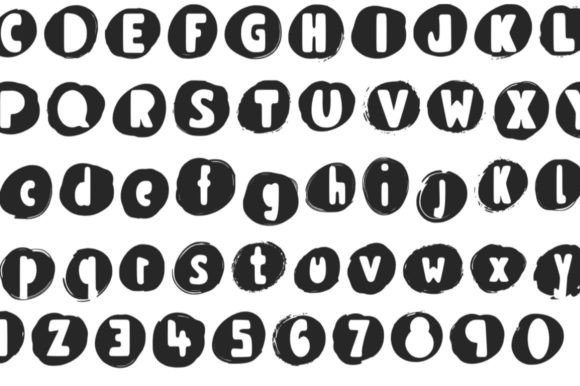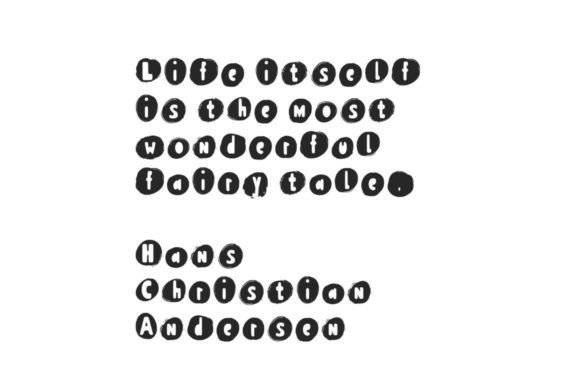
Introducing Blob Font: The Playful and Bold Decorative Font for Creative Projects
Are you looking for a font that adds a touch of playfulness and whimsy to your designs? Look no further than Blob Font, a child-like decorative font that’s perfect for schools, home teaching, craft projects, and more. With its bold and joyful style, Blob Font is sure to bring a smile to anyone’s face.
What is Blob Font?
Blob Font is a unique and eye-catching font that’s designed to add a bit of splat to your designs. Each glyph features a friendly and joyful style, making it perfect for projects that require a playful touch. Whether you’re creating materials for a school, working on a craft project, or designing for a children’s brand, Blob Font is the perfect choice.
Key Features of Blob Font
- Playful and bold design: Blob Font features a unique and eye-catching design that’s sure to grab attention.
- Child-like style: The font’s child-like style makes it perfect for schools, home teaching, and craft projects.
- Joyful and friendly glyphs: Each glyph is designed to be friendly and joyful, adding a touch of whimsy to your designs.
- Easy to read: Despite its playful design, Blob Font is easy to read, making it perfect for use in a variety of projects.
Use Cases for Blob Font
Blob Font is a versatile font that can be used in a variety of projects, including:
- Schools and educational institutions: Blob Font is perfect for creating materials for schools, such as worksheets, posters, and presentations.
- Home teaching and tutoring: If you’re a home teacher or tutor, Blob Font is a great choice for creating educational materials that are fun and engaging.
- Craft projects: Blob Font is perfect for craft projects, such as making cards, gift tags, and other DIY projects.
- Children’s brands and products: If you’re designing for a children’s brand or product, Blob Font is a great choice for adding a playful touch to your designs.
Tips for Using Blob Font
Here are a few tips for using Blob Font in your designs:
- Use it for headings and titles: Blob Font is perfect for use in headings and titles, where its playful design can really shine.
- Pair it with a simple font: For body text, pair Blob Font with a simple font to create a nice contrast.
- Experiment with colors and textures: Blob Font looks great in a variety of colors and textures, so don’t be afraid to experiment and find the perfect look for your project.
Blob Font is a playful and bold decorative font that’s perfect for adding a touch of whimsy to your designs. With its child-like style and joyful glyphs, it’s perfect for schools, home teaching, craft projects, and more. Whether you’re a designer, teacher, or crafter, Blob Font is a great choice for any project that requires a bit of splat.